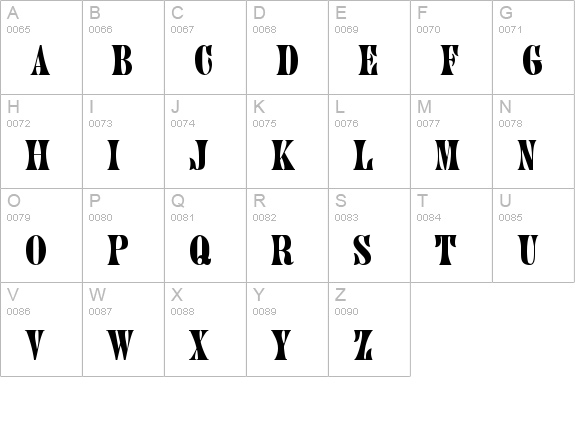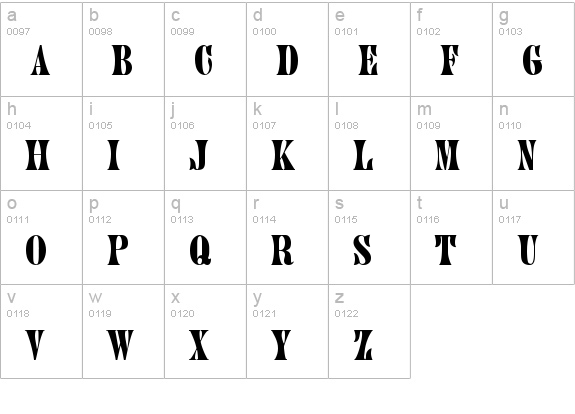
Hubbub SSi Font Details
Hubbub SSi font is a modern and stylish typeface that is perfect for adding a touch of elegance to your design projects. With its sleek lines and distinctive curves, this font exudes sophistication and class. Whether you are designing a logo, a poster, or a website, Hubbub SSi font will make your text stand out and captivate your audience. The best part? Hubbub SSi font is completely free to download at FontsMarket.com. This means you can elevate your designs without breaking the bank. So why wait? Download Hubbub SSi font today and unleash your creativity!